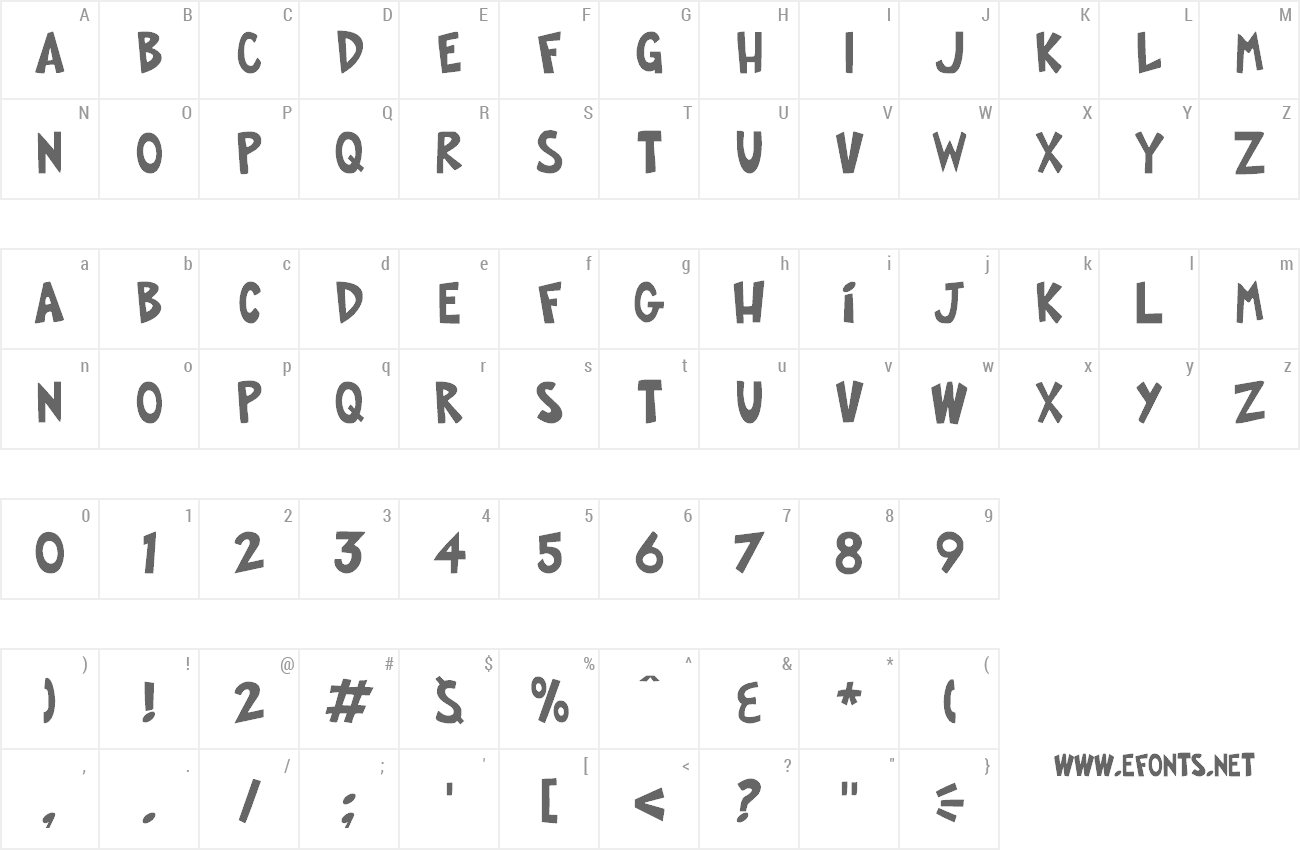
Preview and download FOP Title Style Font. Created by Aryel Filipe in Fancy Cartoon styles with Free for personal use license.
| Font name: | FOP Title Style |
| Author: | Aryel Filipe |
| Note by Aryel Filipe | |
A font made based on a font used on the latest season title cards of the cartoon Fairly Oddparents. A work by a fan for all FOP fans! |